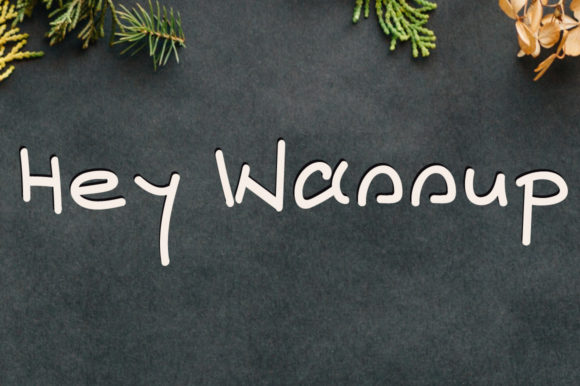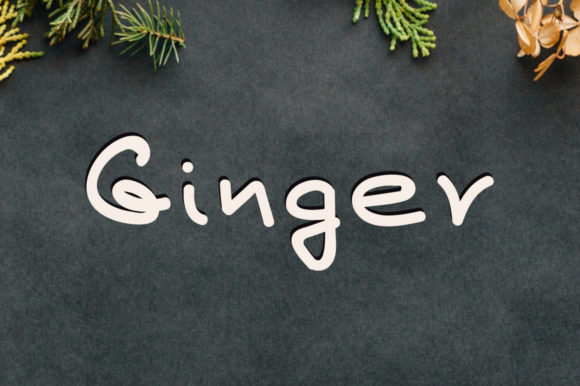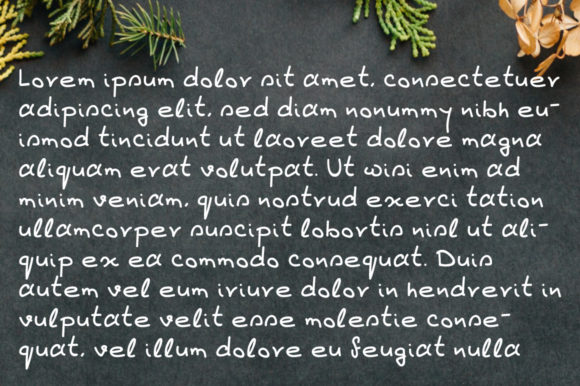
Unleash Your Creativity with Dev2459 Enesiruck Font
Are you tired of using the same old fonts for your design projects? Look no further! Dev2459 Enesiruck is a fun, quirky, and playful display font that will easily turn any design project into a true eye catcher. In this article, we’ll dive into the features and benefits of this amazing font, and explore how it can elevate your designs to the next level.
What is Dev2459 Enesiruck Font?
Dev2459 Enesiruck is a display font designed to make a statement. Its unique and quirky design makes it perfect for adding a touch of personality to your designs. Whether you’re working on a logo, poster, or social media graphic, this font is sure to grab attention and leave a lasting impression.
Key Features of Dev2459 Enesiruck Font
- Fun and Playful Design: Dev2459 Enesiruck has a fun and playful design that’s perfect for creative projects.
- Quirky and Unique: This font has a quirky and unique design that will set your projects apart from the rest.
- Display Font: Dev2459 Enesiruck is a display font, making it perfect for headlines, titles, and other display text.
- Easily Readable: Despite its quirky design, Dev2459 Enesiruck is easily readable, making it perfect for use in a variety of design projects.
Benefits of Using Dev2459 Enesiruck Font
So why should you use Dev2459 Enesiruck font in your design projects? Here are just a few benefits:
- Adds Personality to Your Designs: Dev2459 Enesiruck adds a touch of personality to your designs, making them more engaging and memorable.
- Perfect for Creative Projects: This font is perfect for creative projects, such as logos, posters, and social media graphics.
- Versatile: This font can be used in a variety of design projects, from digital graphics to print materials.
Who Can Benefit from Dev2459 Enesiruck Font?
Dev2459 Enesiruck font is perfect for a variety of designers and crafters, including:
- Graphic Designers: Graphic designers can use Dev2459 Enesiruck to add a touch of personality to their designs.
- Log designers: Log designers can use this font to create unique and memorable logos.
- Social Media Managers: Social media managers can use Dev2459 Enesiruck to create eye-catching social media graphics.
- Crafters: Crafters can use this font to add a personal touch to their crafts, such as handmade cards and gift tags.
Dev2459 Enesiruck is a fun, quirky, and playful display font that will easily turn any design project into a true eye catcher. With its unique design and easily readable text, this font is perfect for adding a touch of personality to your designs. Whether you’re a graphic designer, log designer, social media manager, or crafter, Dev2459 Enesiruck font is a great addition to your font collection.